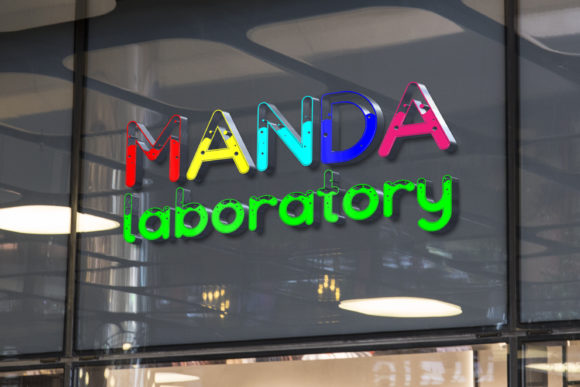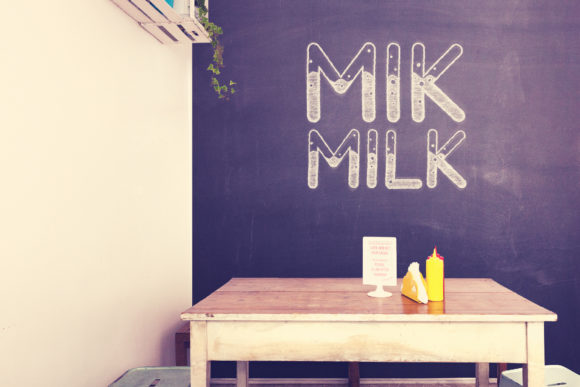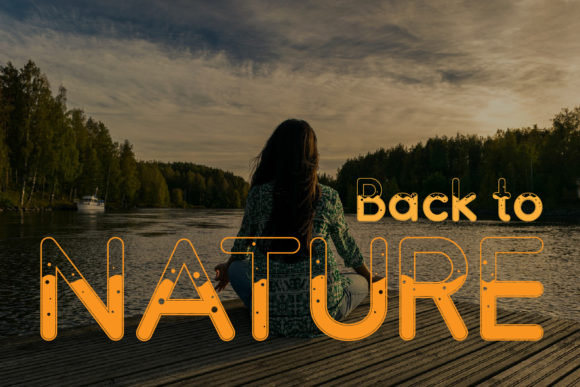
Chemistry Font: Elevate Your Designs with a Lovely and Original Display Font
Are you tired of using the same old fonts for your design projects? Do you want to add a touch of personality and uniqueness to your creations? Look no further than the Chemistry Font! This stunning display font is perfect for designers and crafters who want to make their work stand out from the crowd.
What is Chemistry Font?
Chemistry Font is a beautifully designed display font that features alternates, giving you a range of options to customize your text. With its lovely and original design, this font is sure to add a touch of elegance and sophistication to any project. Whether you’re working on a logo, branding materials, or social media graphics, Chemistry Font is the perfect choice.
Key Features of Chemistry Font
- Unique and Original Design: Chemistry Font boasts a one-of-a-kind design that’s sure to grab attention.
- Alternates: With a range of alternate characters, you can mix and match to create a truly personalized look.
- Display Font: Chemistry Font is specifically designed as a display font, making it perfect for headlines, titles, and other prominent text.
Why Choose Chemistry Font?
So, why should you choose Chemistry Font for your next design project? Here are just a few reasons:
- Add Personality to Your Designs: With Chemistry Font, you can add a touch of personality and whimsy to your designs, making them more engaging and memorable.
- Stand Out from the Crowd: This unique font is sure to make your designs stand out from the crowd, helping you to establish a strong brand identity.
- Versatile: Chemistry Font can be used for a wide range of design projects, from logos and branding materials to social media graphics and more.
How to Use Chemistry Font
Using Chemistry Font is easy! Here are a few tips to get you started:
- Experiment with Alternates: Try out different alternate characters to create a unique look that suits your brand or design style.
- Pair with Other Fonts: Chemistry Font pairs well with a range of other fonts, so don’t be afraid to experiment with different combinations.
- Use for Headlines and Titles: This font is specifically designed for display use, making it perfect for headlines, titles, and other prominent text.
Chemistry Font is a must-have for designers and crafters who want to elevate their work with a unique and original font. Whether you’re working on a client project or creating personal designs, this font is sure to inspire and delight.
From graphic designers and branding experts to crafters and DIY enthusiasts, Chemistry Font is the perfect choice for anyone looking to add a touch of personality and style to their designs.
In conclusion, Chemistry Font is a stunning display font that’s perfect for designers and crafters who want to add a touch of elegance and sophistication to their work. With its unique and original design, alternates, and ease of use, this font is sure to become a favorite in your design arsenal.